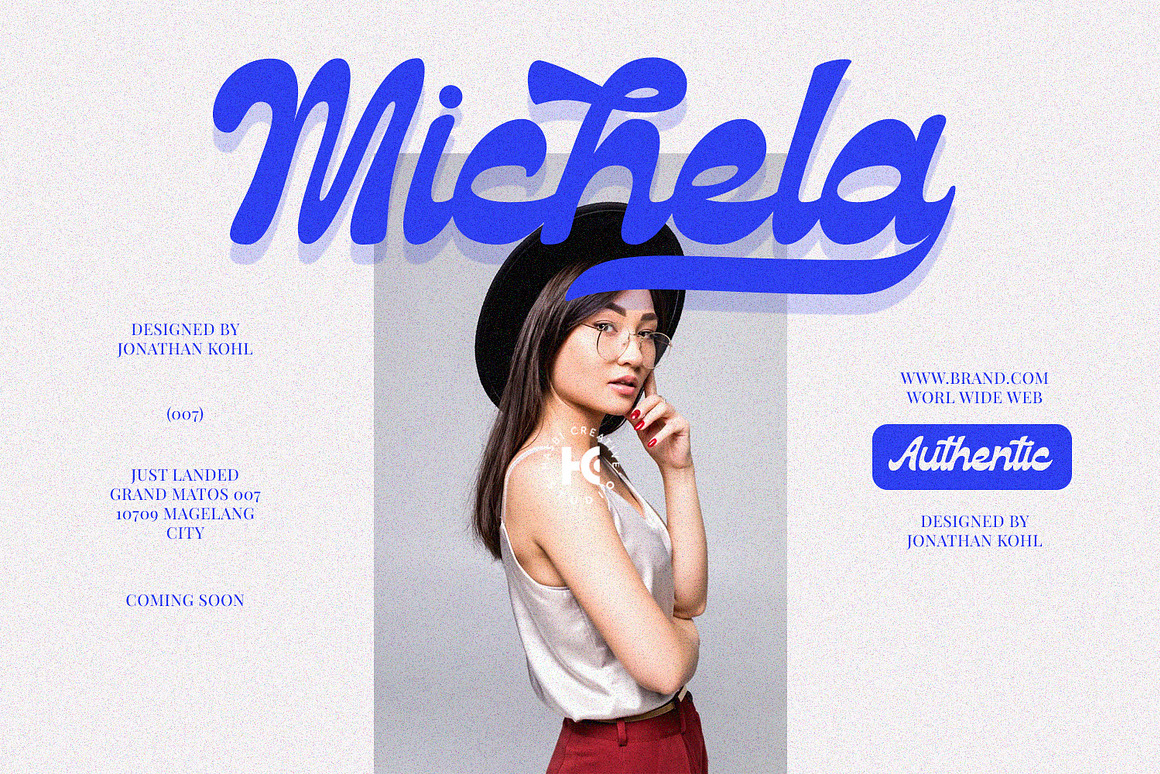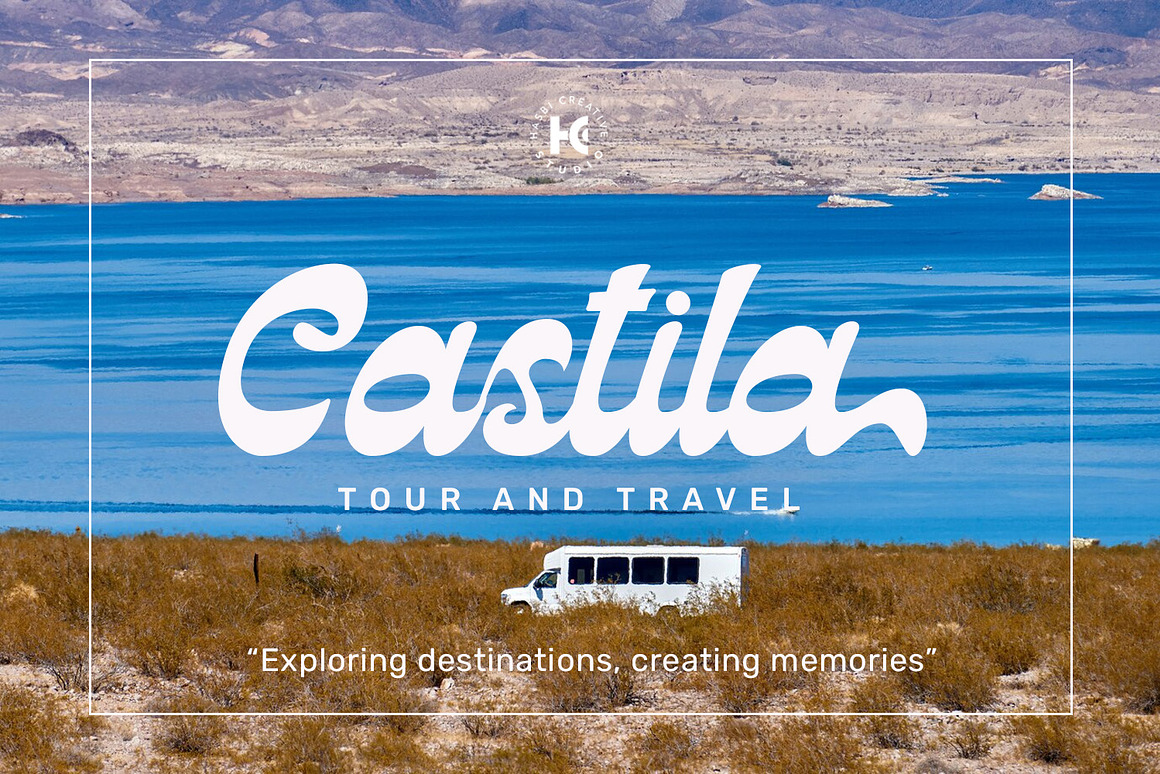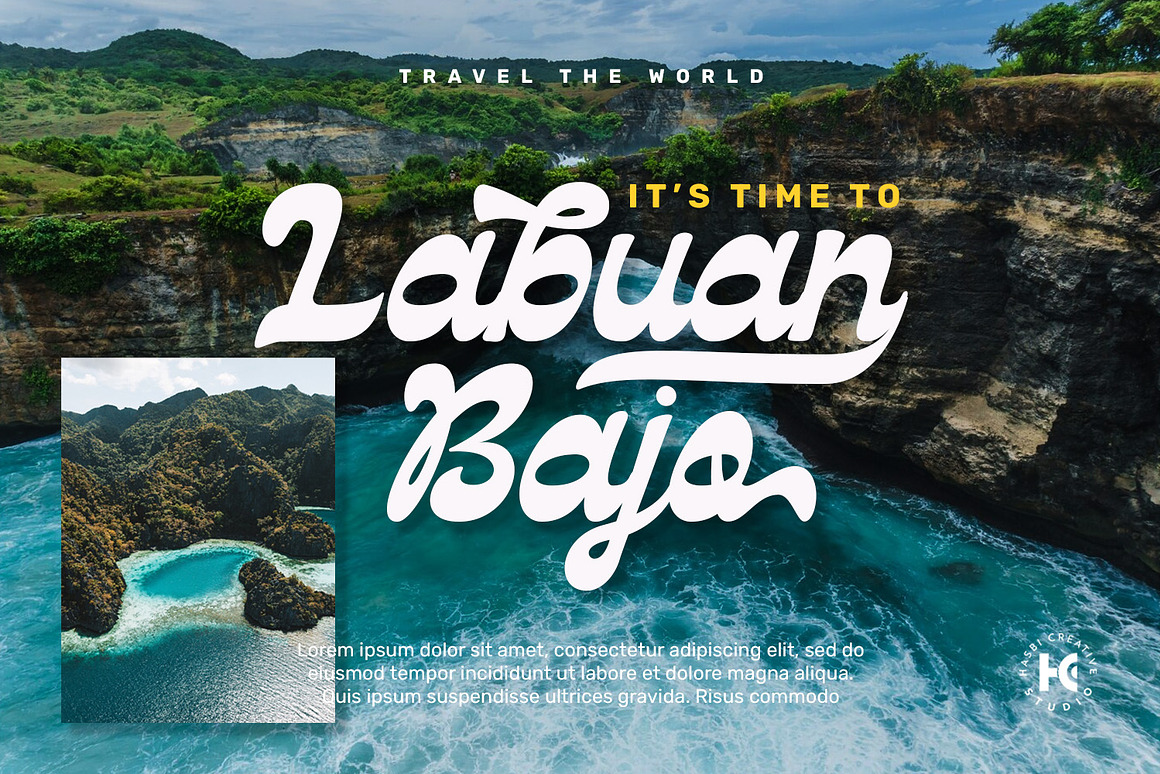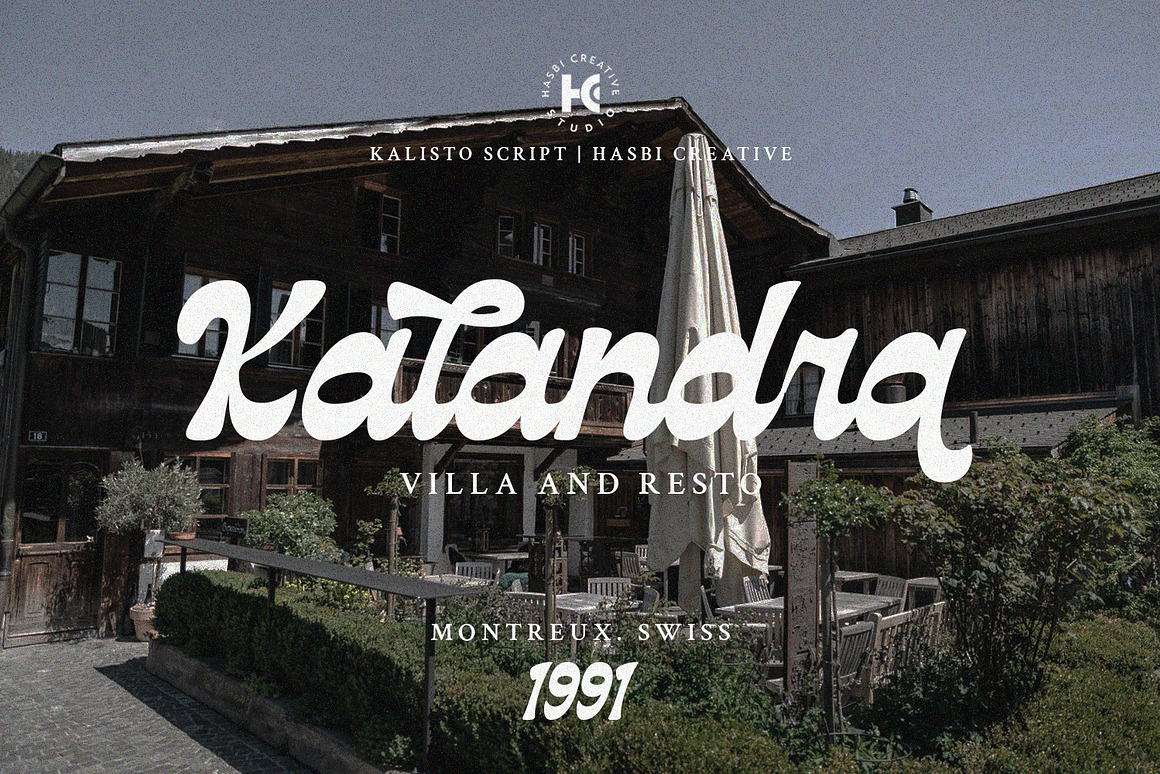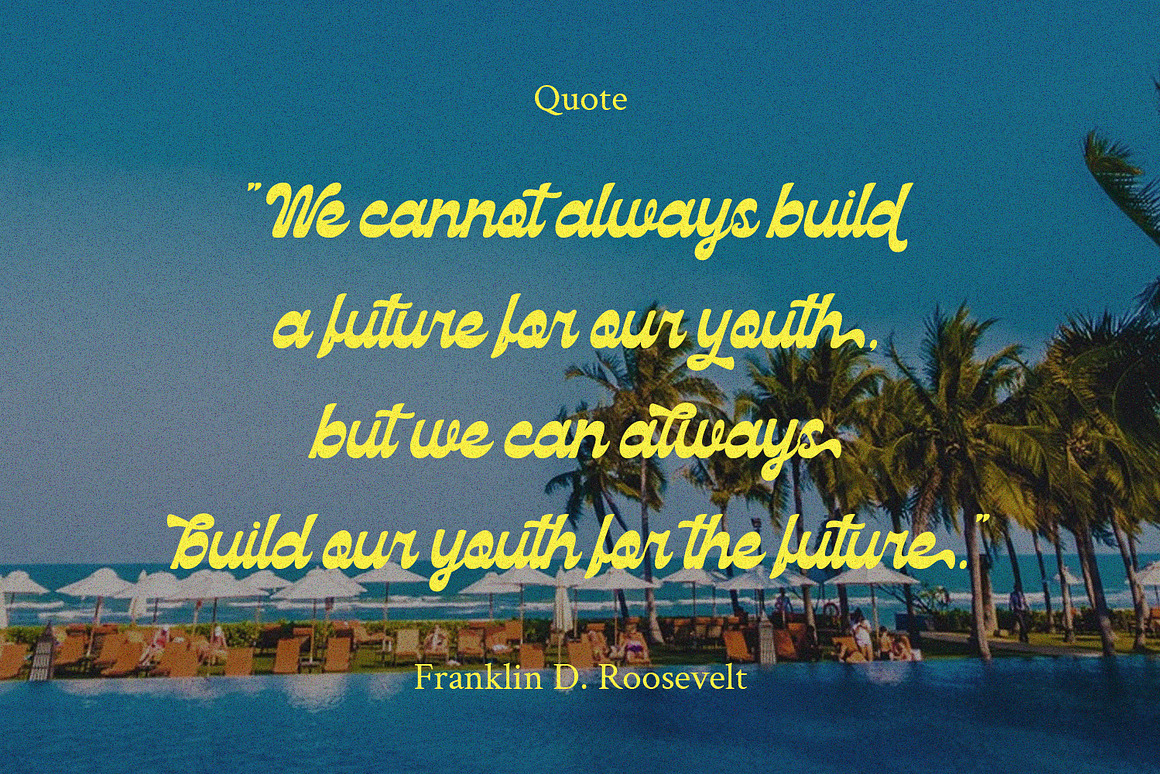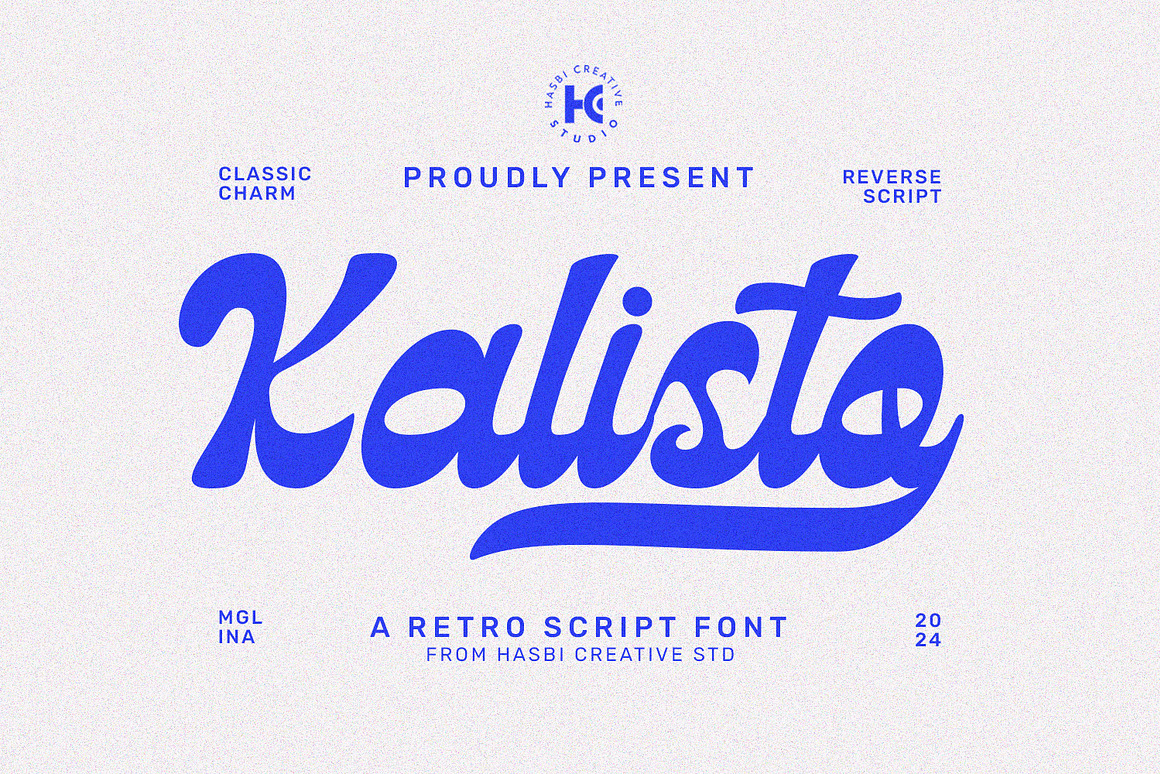
Kalisto - Retro Script Font
Kalisto Retro Script is a beautifully crafted script font inspired by classic calligraphy. With its flowing lines and intricate details, this font adds a touch of vintage charm to any design. Perfect for creating elegant logos, invitations, title and other design projects that require a sophisticated and timeless aesthetic.